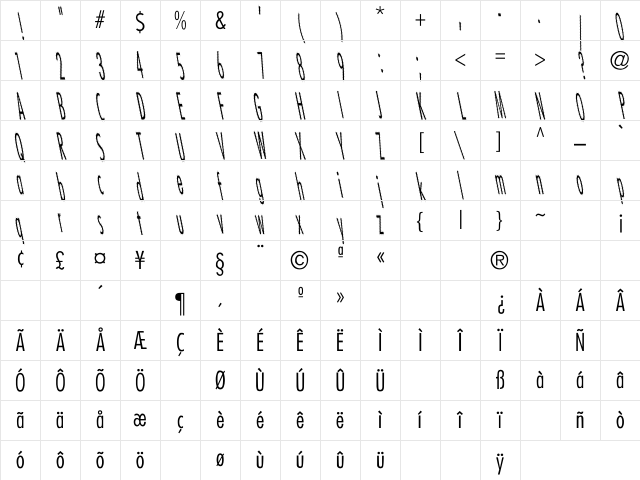
Complete CatScratch Thin Rev Italic Regular glyph index. Displaying only characters natively supported by CatScratch Thin Rev Italic Regular font.
CatScratch Thin Rev Italic is a composed and adaptable typeface that performs quietly and consistently across a wide range of design contexts. The slanted form adds forward momentum and visual energy. Its slender proportions lend an understated elegance to any composition.
Pro Tip: Use CatScratch Thin Rev Italic for emphasis, pull quotes, and subheadings where its slanted energy can add rhythm to the layout.